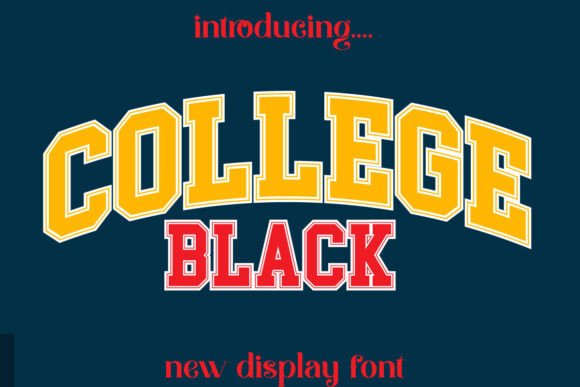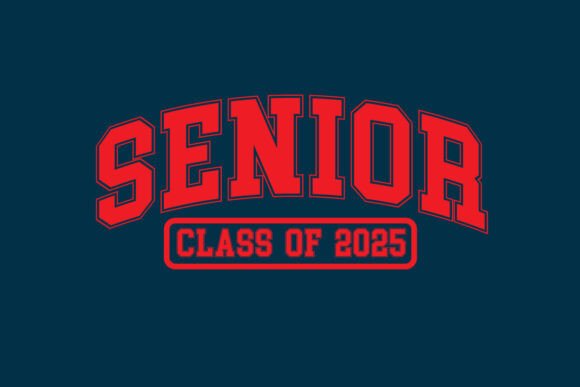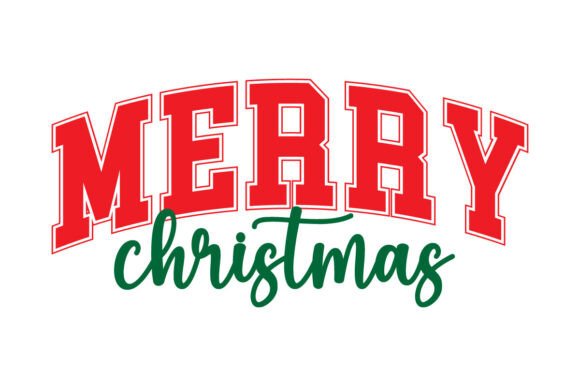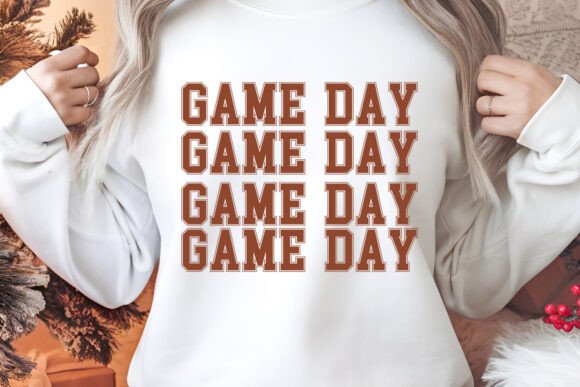
College Black Font
About the College Black Font
The College Black Font offers a perfect balance of form and function for your design needs. College Black Design is a modern and bold display font. Suitable for sports design, team, jersey, league, movie, documenter, film, logo, poster, game, book cover, headlines, title, and many more projects.
College Black’s strong, bold forms excel in large-scale applications such as headlines, posters, and branding projects where a powerful statement is needed. It’s ideally suited for projects conveying themes of strength, authority, or dynamism—think sports apparel, action movie titles, or corporate logos requiring a commanding presence. However, its weight and condensed nature make it less suitable for body text or UI elements requiring high readability.
Pairing College Black effectively requires considering its bold personality. A clean sans-serif like Open Sans or a geometric sans-serif like Futura would provide a balanced contrast, offering readability for supporting text. For a more refined look, consider pairing it with a subtle serif like Garamond or a graceful script font for logos or special elements, depending on the project’s overall aesthetic.
The font’s core personality is undeniably bold and assertive, conveying a sense of confidence and authority. Therefore, brands and projects requiring a strong visual identity would benefit most from its use.
College Black Font Usage Examples
College Black Font Example